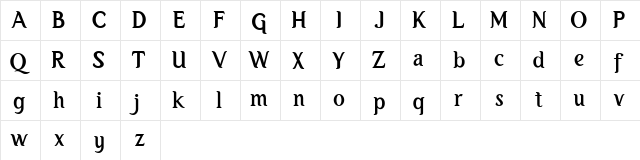
Itikaf FREE Regular
| Designer | inspiratype |
Design Context for Itikaf FREE Typeface
Itikaf FREE takes a measured approach to typography — its balanced proportions and neutral character make it a reliable workhorse for both digital and print work.